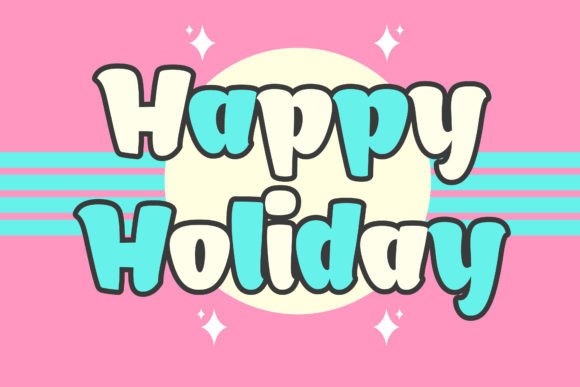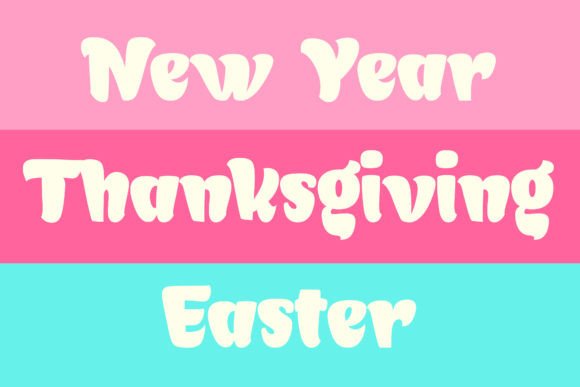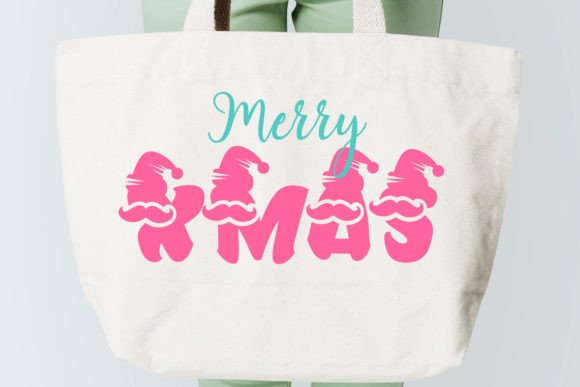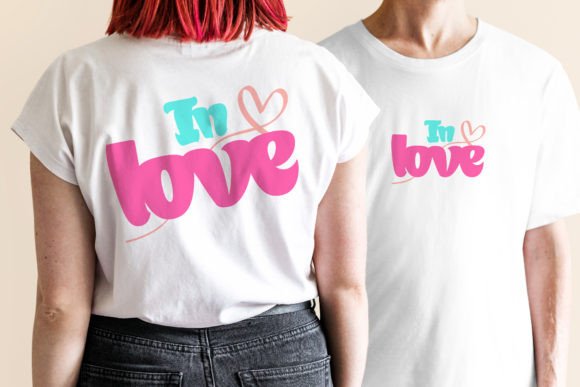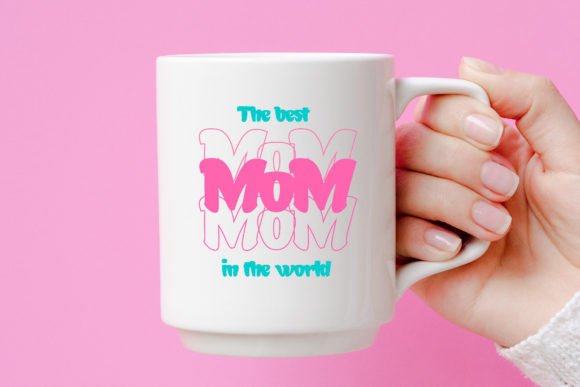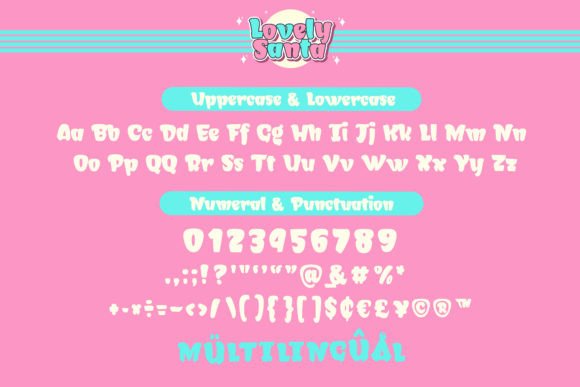
Introduction to Lovely Santa Font
Lovely Santa is a cartoon-style display font with a great punch.
Everything written in this font will be instantly recognizable and will attract attention It will work great for comic book style, online games, cards, love shirts, posters, movie titles, eye-catching social media posts, or anything that requires youthfulness and courage.
Key Features of Lovely Santa Font
Why Choose Lovely Santa Font?